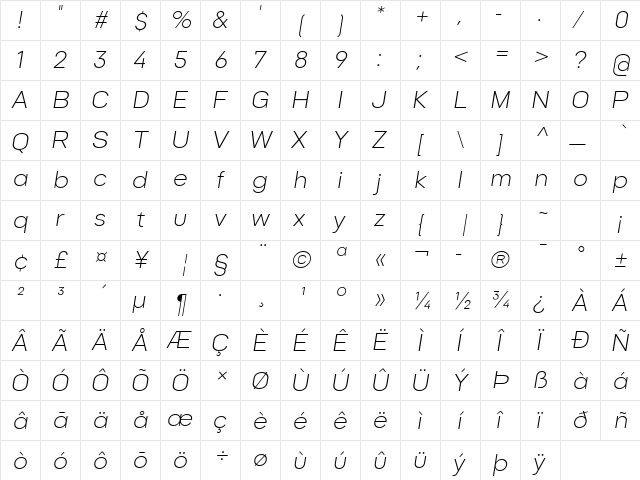
Goldbill XL Light Italic
Design Context for Goldbill Typeface
Goldbill offers clean, dependable letterforms without strong stylistic allegiance, making it a practical choice for designers who need flexibility. Its italic angle brings a sense of urgency and motion to the letterforms. Its slender proportions lend an understated elegance to any composition.
Pro Tip: Use Goldbill for emphasis, pull quotes, and subheadings where its slanted energy can add rhythm to the layout.